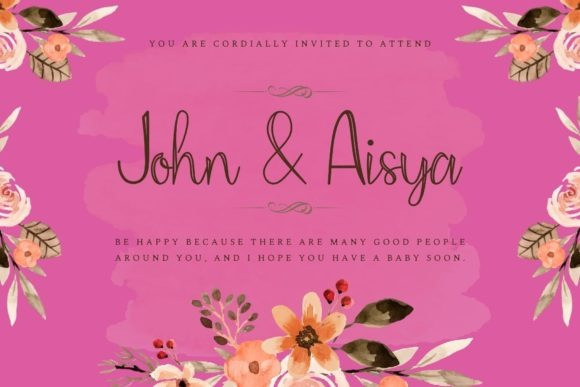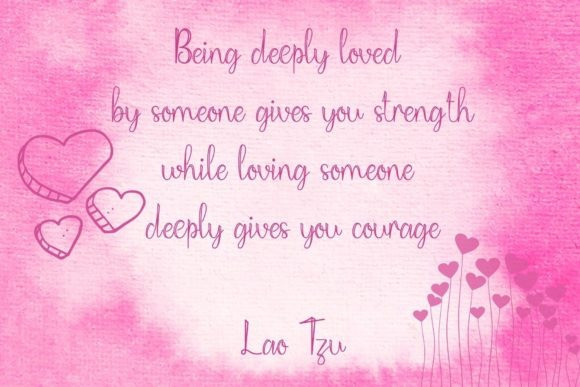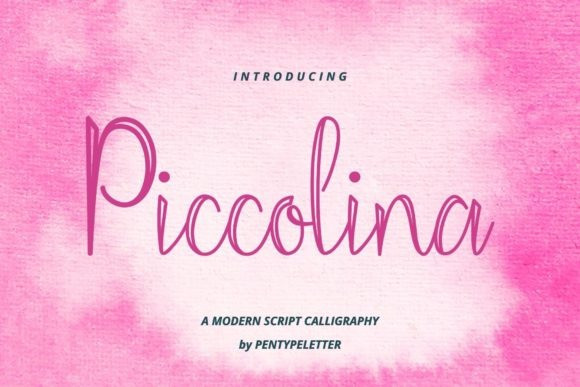
Piccolina Font
Piccolina Font is a lovely and delicate script font that exudes elegance and class. This font was particularly crafted for those who need a beautiful and refreshing look to their designs.